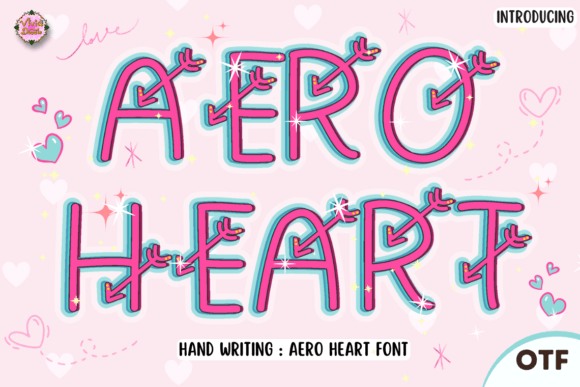
Deck the Halls with Aero Heart Font: Your New Go-To for Festive Cheer
It’s that time of the year again – the season of joy, giving, and, for us creatives, a flood of holiday-themed projects. I still remember the year I was tasked with designing a Christmas card for a client, only to find myself stuck in a font rut. The usual suspects – Arial, Times New Roman, and Helvetica – just weren’t cutting it. That’s when I wished for a font that embodied the warmth and playfulness of the holiday season. Fast forward to today, and I’m thrilled to introduce you to the Aero Heart Font, a hand-lettered gem that’s sure to become your new favorite.
What Makes Aero Heart Font So Special?
Aero Heart Font is more than just a festive font – it’s an experience. This unique, hand-crafted font is designed to bring the merriment of the season to your creations, whether you’re a designer, crafter, or creative hobbyist. With its adaptable and enchanting design, Aero Heart Font is perfect for a wide range of projects, from holiday cards and decorations to social media graphics and more.
So, what do I love about Aero Heart Font? Here are a few highlights:
• ✨ Unique, hand-lettered design that exudes festive cheer
• ✅ Highly adaptable for various projects and design styles
• 🎉 Extensive OpenType features, including glyphs and stylistic alternates
And, like any font, it’s not without its quirks:
• 🤔 Some users may find the font a tad too ornate for very formal or minimalist designs
• ⚠️ Limited support for non-English languages (but who doesn’t love an excuse to get creative with transliterations?)
Aero Heart Font was born from a passion project to create a font that captures the essence of the holiday season. Inspired by traditional holiday decorations, festive street lights, and the warmth of loved ones, this font is designed to spread cheer and joy. Whether you’re a professional designer or a creative hobbyist, Aero Heart Font aims to bring a smile to your face and a touch of magic to your creations.
Is Aero Heart Font suitable for non-holiday projects? Absolutely! While Aero Heart Font is designed with the holiday season in mind, its unique and adaptable design makes it suitable for a wide range of creative projects.
With Aero Heart Font, you’re not just getting a font – you’re getting a key to unlock the festive spirit in your designs. So go ahead, get creative, and spread some holiday cheer with this enchanting font!